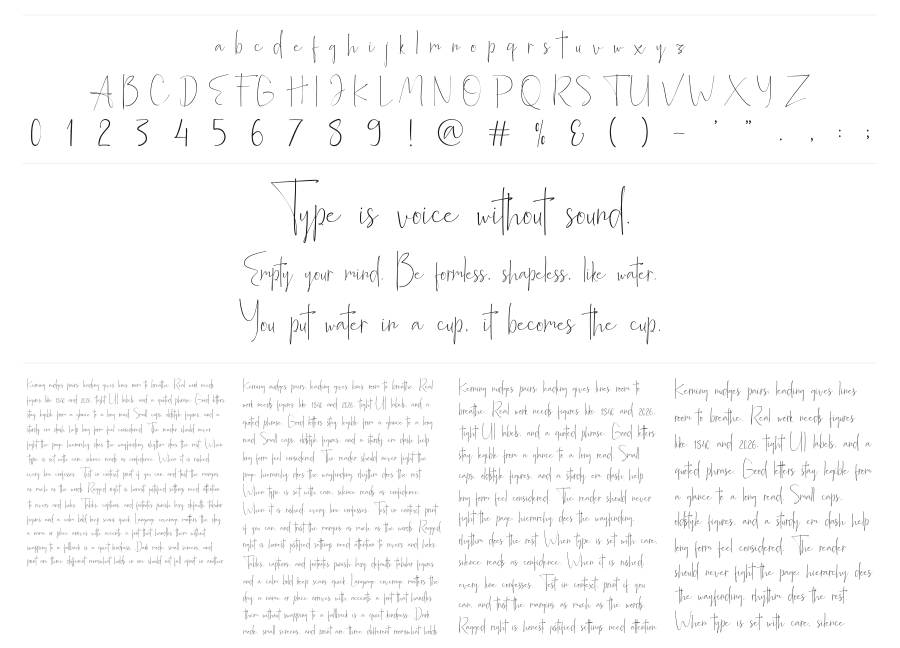
Alberth
Alberth is a thin casual script built on flowing connected strokes with long, expressive ascenders and descenders. The hairline weight keeps it light and airy, lending it a contemporary calligraphic feel that reads as both relaxed and refined. It suits wedding stationery, beauty branding, and any project that calls for understated elegance.